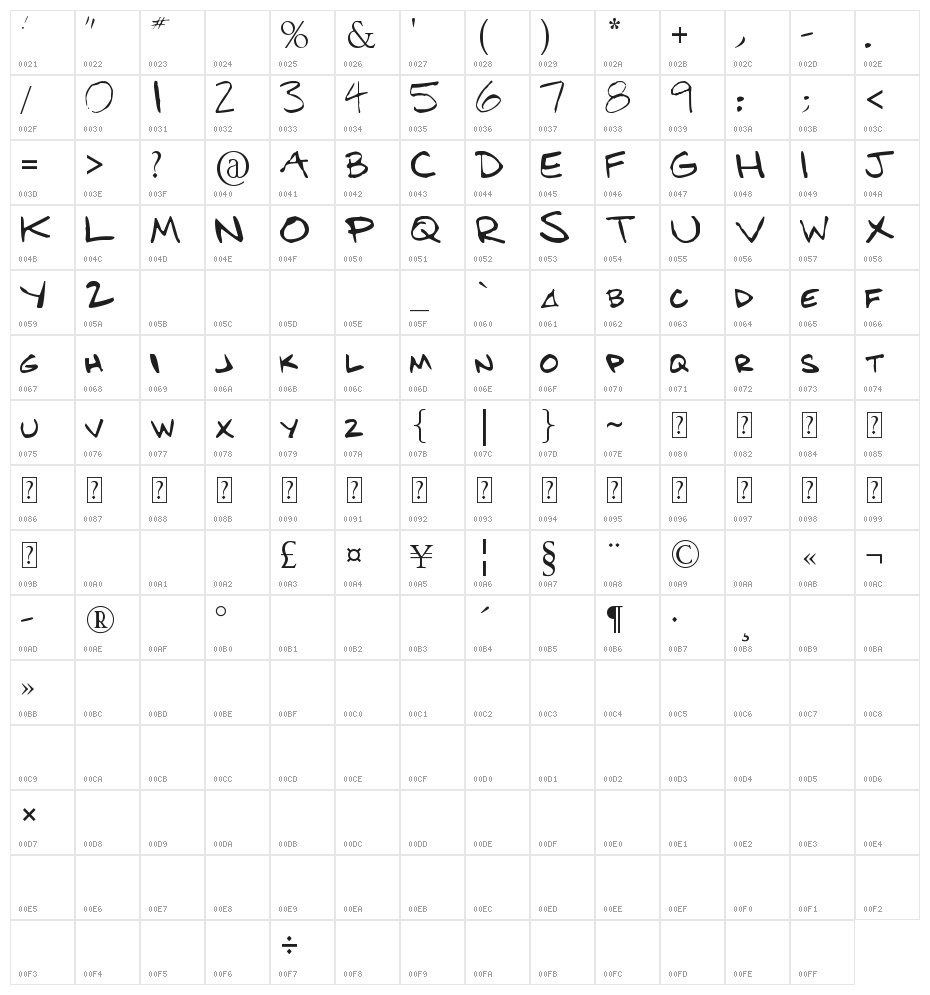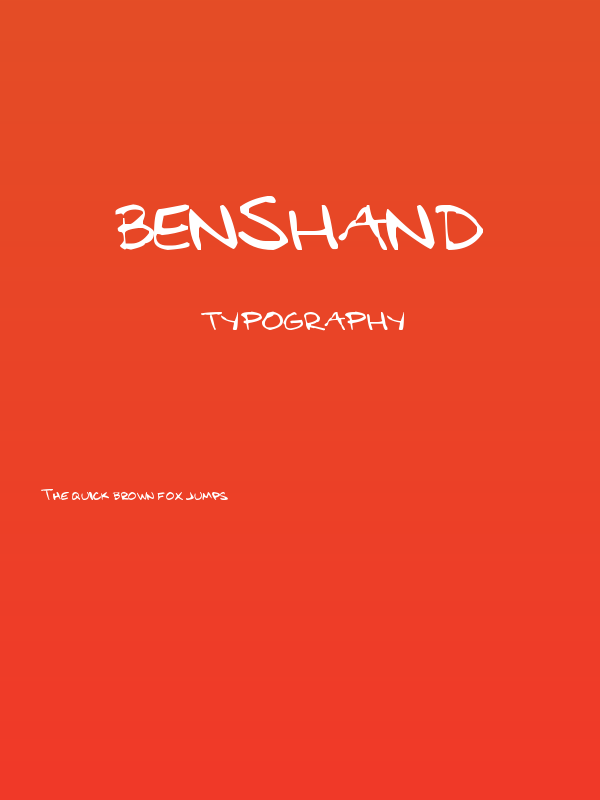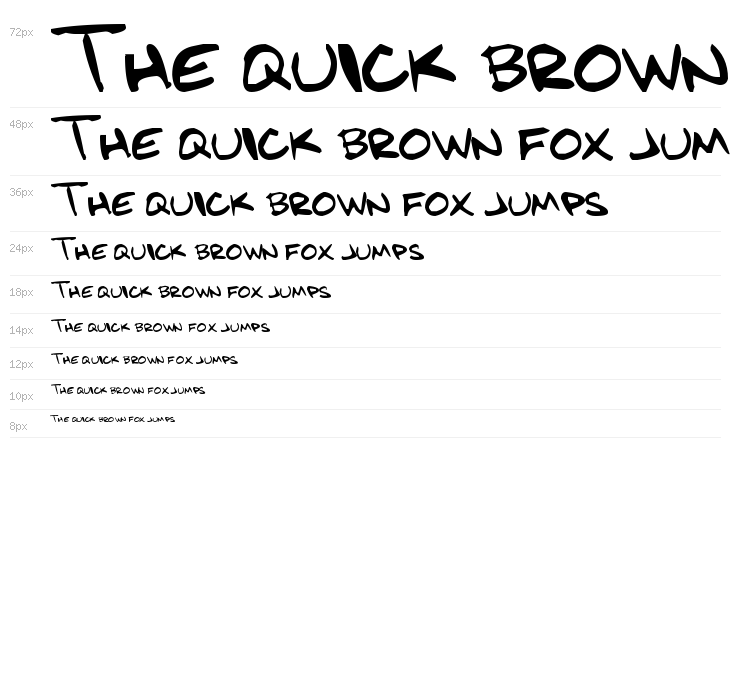
BensHand Font
BensHand Description
This font exudes a casual, handwritten style with a playful and energetic vibe. The letters are irregular and slightly slanted, giving a dynamic and informal appearance. The strokes are bold and varied in thickness, adding to the hand-drawn feel. The characters are slightly uneven, enhancing the personal touch of the font. It includes a full set of uppercase and lowercase letters, numerals, and a variety of special characters, making it versatile for different uses. The overall look is friendly and approachable, suitable for projects that require a personal or creative touch.
| Proposed Projects | Ideal for greeting cards, children's books, creative posters, and personal branding. |